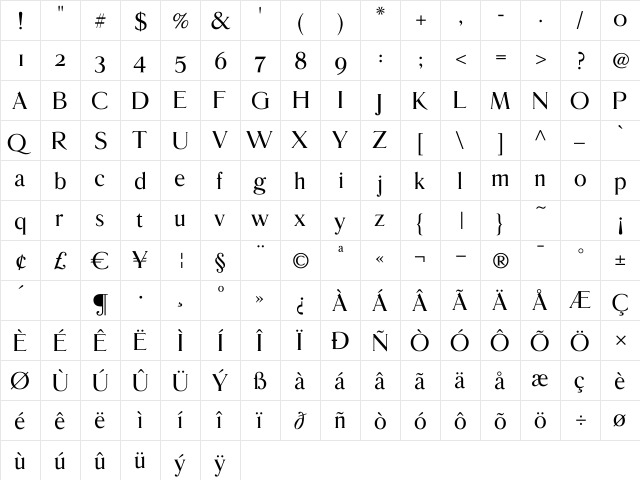
GlossoRegular Regular
Design Context for GlossoRegular Typeface
GlossoRegular takes a measured approach to typography — its balanced proportions and neutral character make it a reliable workhorse for both digital and print work.